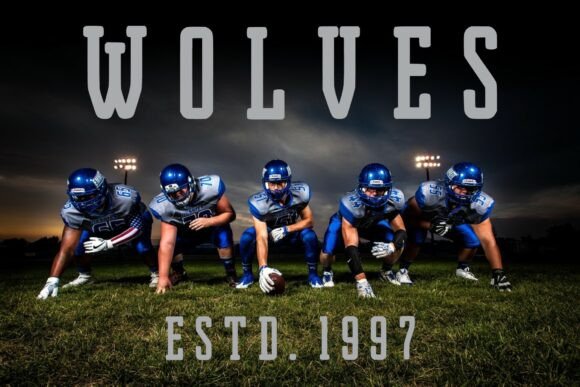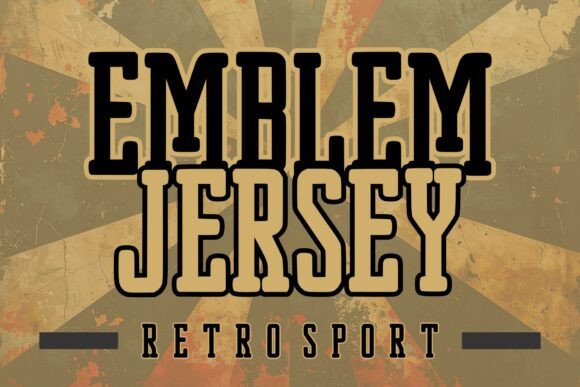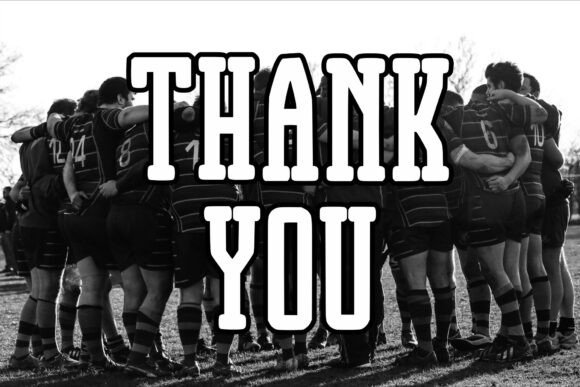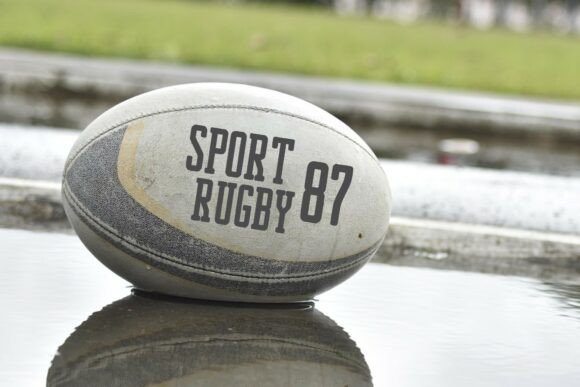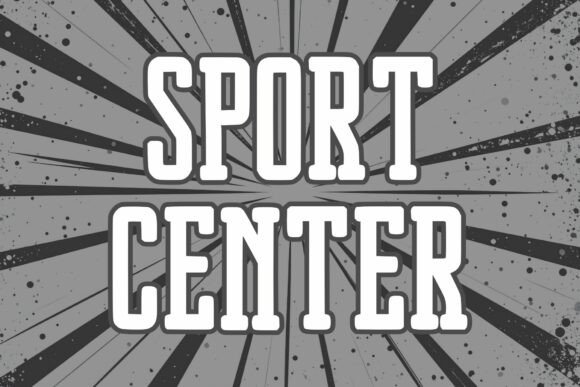
Introduction to Emblem Jersey Font
Have you ever been inspired by the rush of adrenaline as you watch your favorite sports team take to the field? The roar of the crowd, the pounding of the drums, and the sheer energy of competition all combine to create an unforgettable experience. For designers, capturing that same energy in a font can be a game-changer – and that’s exactly what the Emblem Jersey Font does.
This bold and dynamic font is a masterclass in typography, inspired by the classic display fonts of college sports. With its thick lines, sharp edges, and commanding look, the Emblem Jersey Font is the perfect design resource for any creative project that needs to convey power, athleticism, and excitement.
Key Features of Emblem Jersey Font
- High-quality font with a unique, modern design suitable for various creative projects.
- Perfect for use in logos, branding materials, and other design elements where a modern and sleek look is required.
- Great for designers, artists, and businesses looking for a unique and high-quality design resource for their creative project.
Honest Review: Emblem Jersey Font
I recently stumbled upon the Emblem Jersey Font and I must say it’s been a game-changer for my design projects. I downloaded it for free and was impressed by its high quality. The font is perfect for creating a sporty, modern look, making it ideal for logos, jerseys, or any other creative project.
What works well with this font is its versatility. I love that it comes with a transparent background option, which allows me to easily combine it with other design elements. The font also features a unique, bold style that grabs attention, making it perfect for promotional materials, sports branding, or apparel design.
- ✨ Unique and bold style
- ✨ Versatile and adaptable
- ✨ High quality and clear
However, I do have to mention a few limitations. The font is not as extensive as some other fonts in the market, and the character set is limited. Additionally, some users may find the font too bold or overwhelming, which could be a drawback for certain design projects.
Overall, I’m really impressed with the Emblem Jersey Font and would definitely recommend it to anyone working on a creative project that requires a bold, modern look. Just be aware of its limitations and use it judiciously to get the best results.
For the best results, use Emblem Jersey Font in combination with a transparent background to create a clean and modern look. You can also experiment with different font sizes and colors to add visual interest to your design.
Emblem Jersey Font is ideal for a variety of creative projects, including sports branding, fashion design, and graphic art. Its high quality and unique design make it a popular choice among designers and artists.